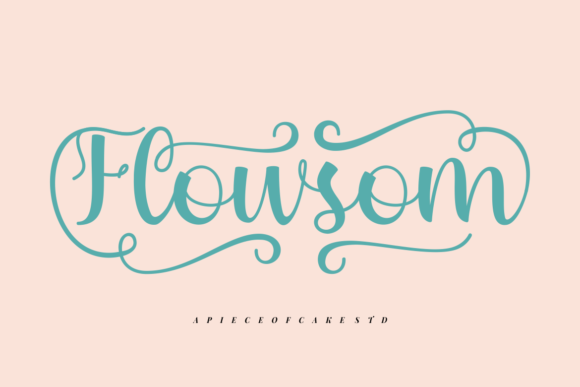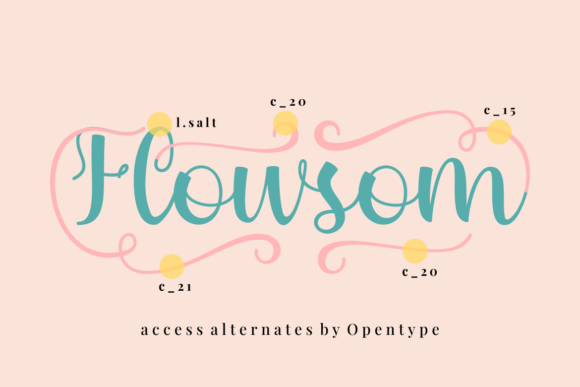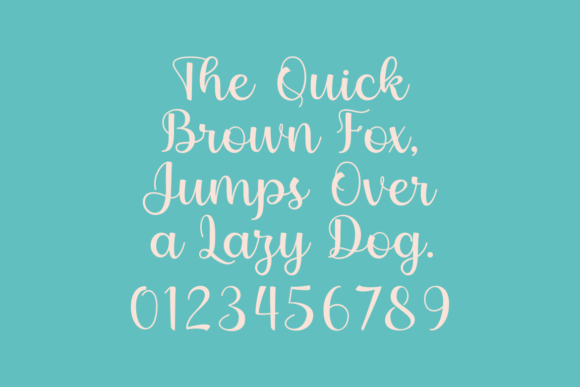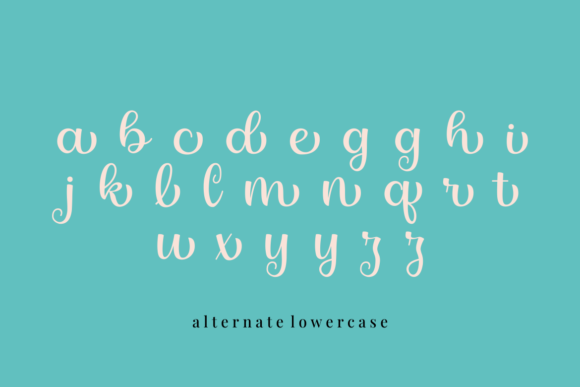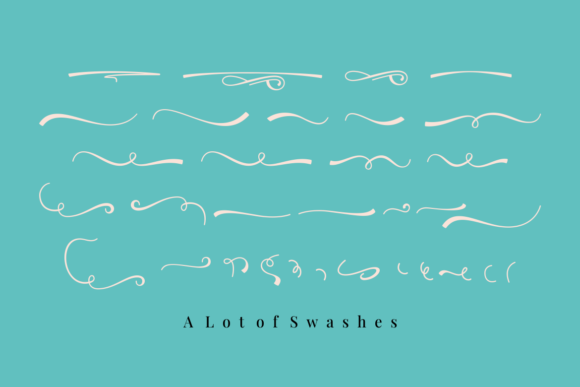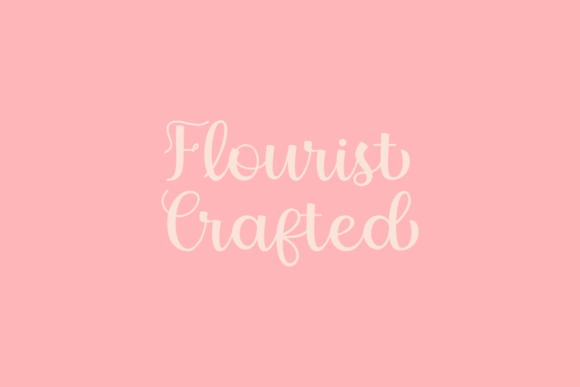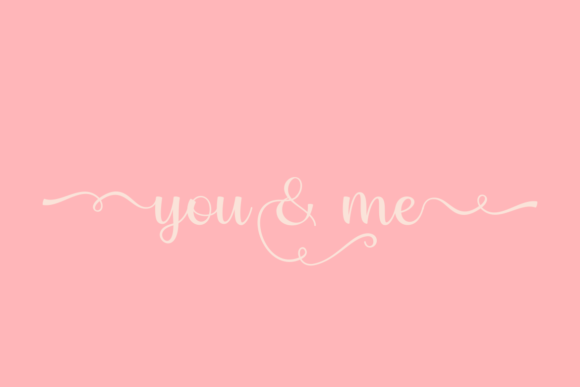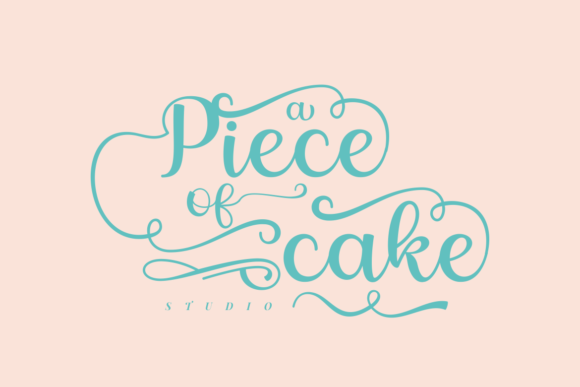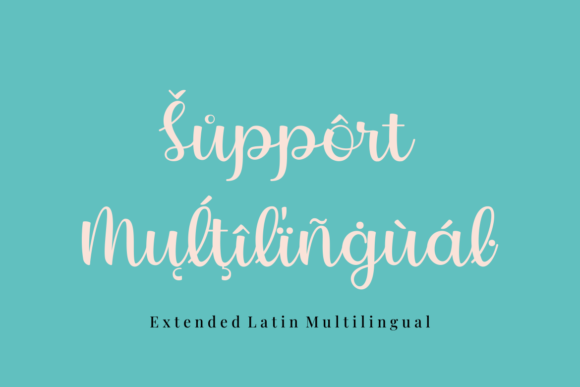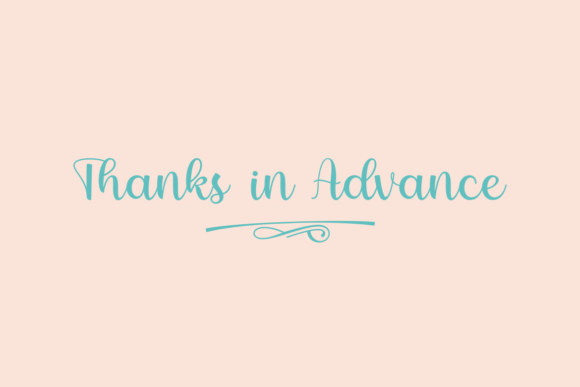
Flowsom Font
About Flowsom Font
Flowsom is an elegant script font with a contemporary atmosphere and impeccable form, inspired by timeless classic calligraphy. This font is PUA encoded which means you can access all of the glyphs and swashes with ease!